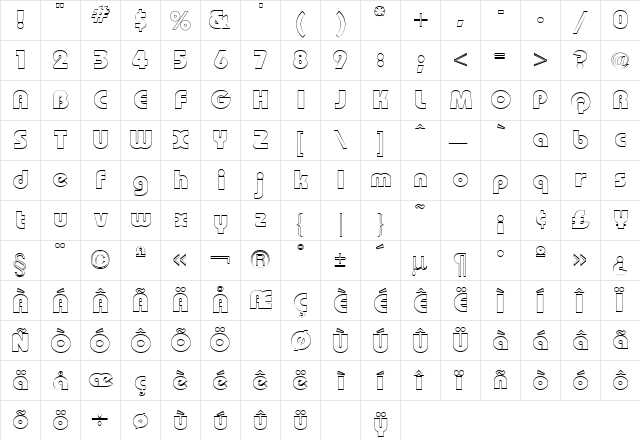
Bauhaus Heavy Outline Regular
Design Context for Bauhaus Heavy Outline Typeface
Bauhaus Heavy Outline brings ornamental detail and strong personality to headlines and identities, where visual impact matters more than quiet functionality.
Font Pairing: Pair with a clean neutral sans-serif for body copy to let Bauhaus Heavy Outline's character lead without overwhelming the composition.
Pro Tip: Treat Bauhaus Heavy Outline as the centrepiece of your typographic hierarchy. One strong heading set in a decorative face can carry an entire layout.